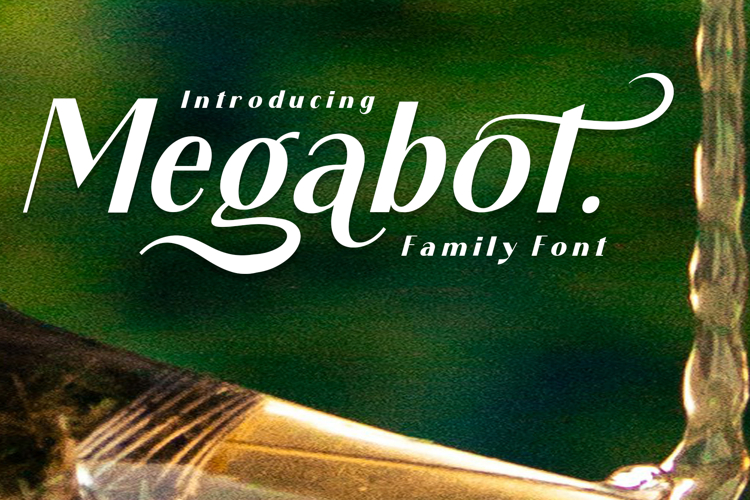
Immerse yourself in the sleek, modern elegance of the Megabot Family sans serif font. This comprehensive typeface suite offers a multitude of variations - a delightful fusion of upright and inclined styles. Sharp, yet friendly, Megabot presents the unique balance between clean lines and dynamic italics, embodying versatility in every character. Perfect for giving your graphic design projects that fresh, contemporary vibe. Embrace the creative freedom of Megabot Family sans serif font, where typography is not just a tool, but an art form.